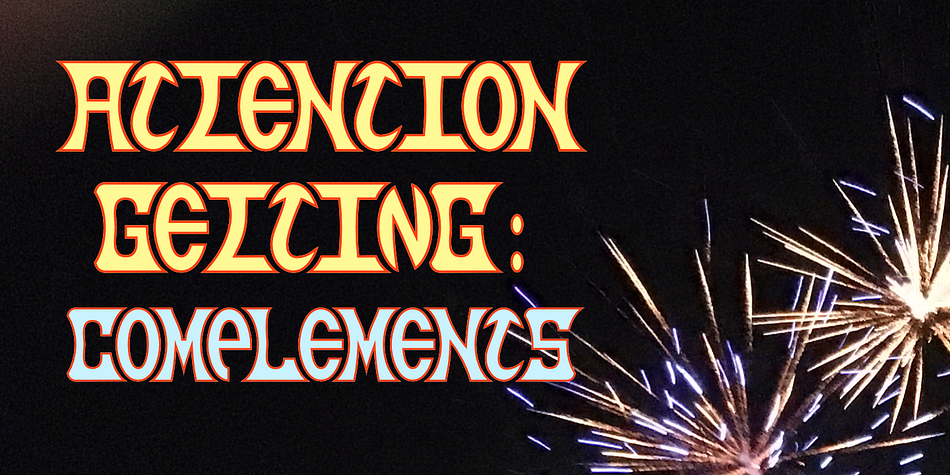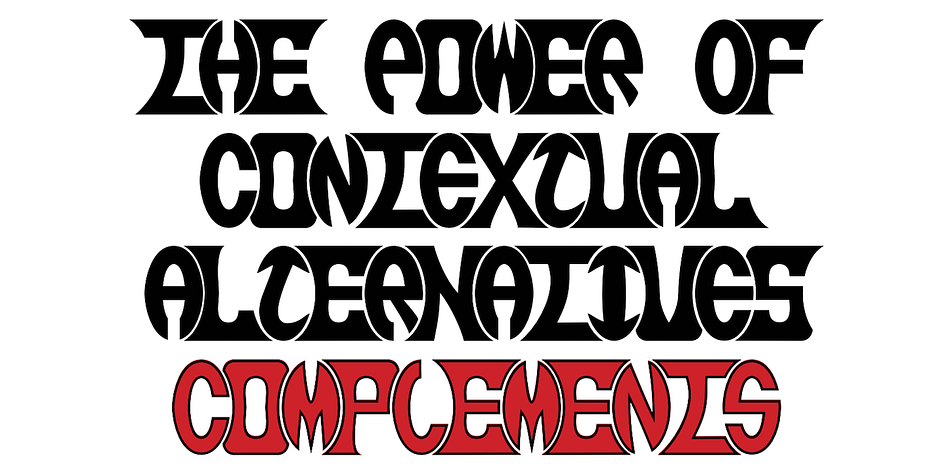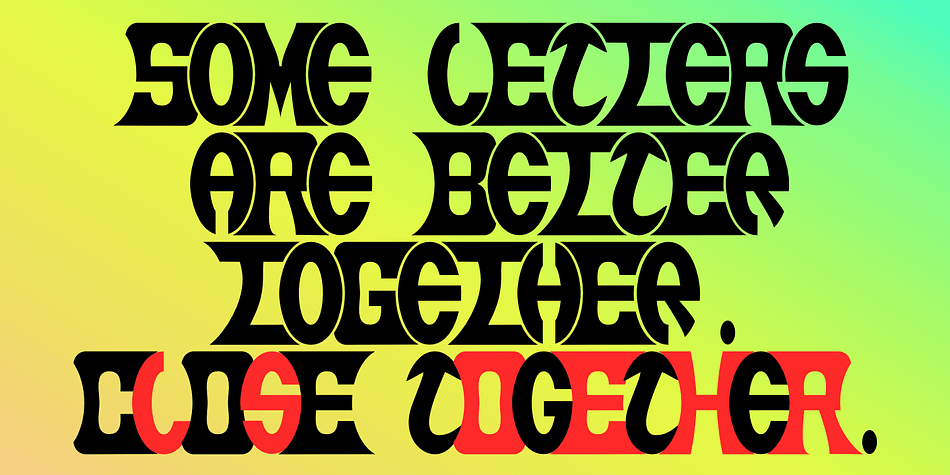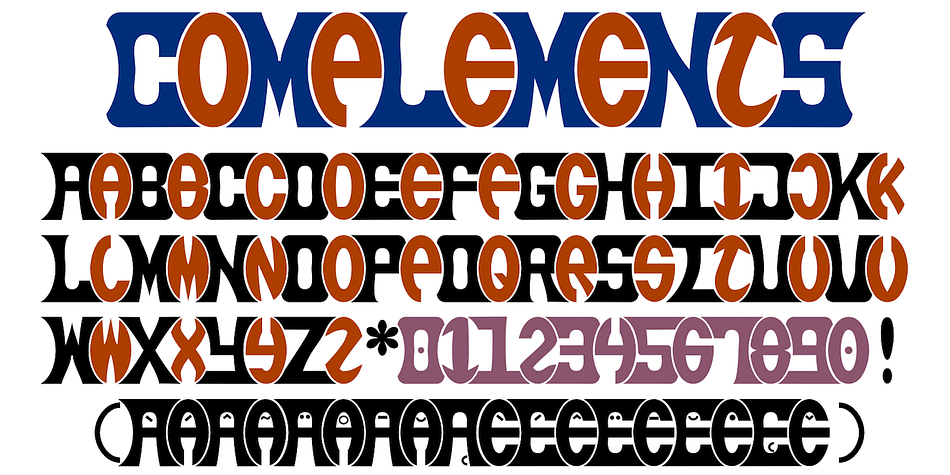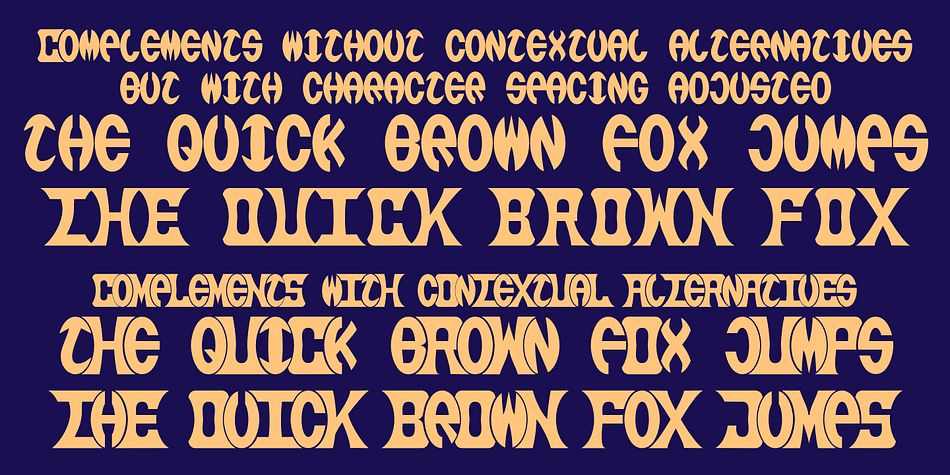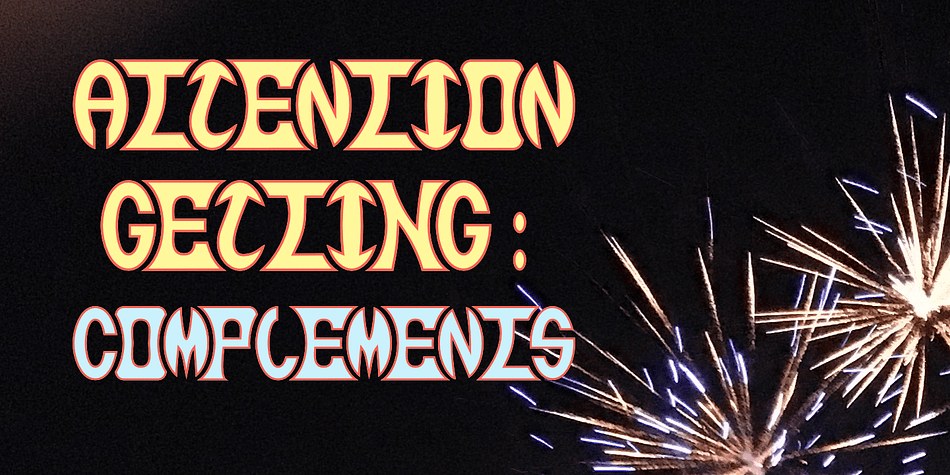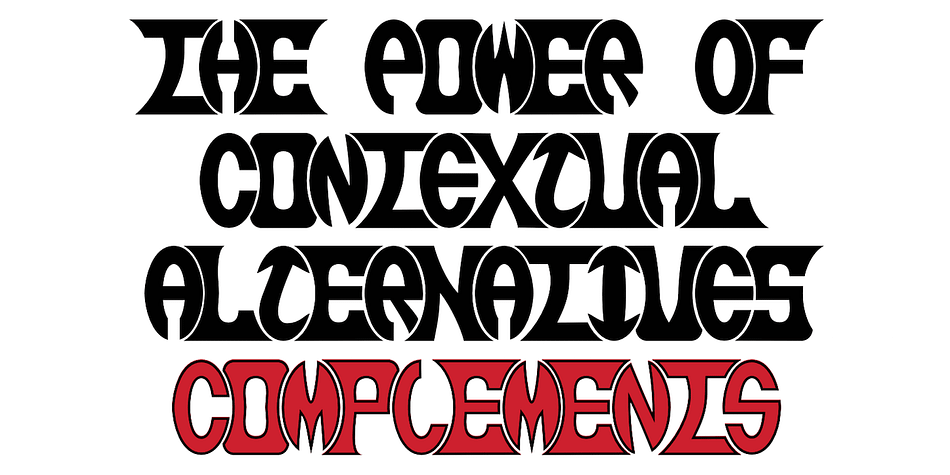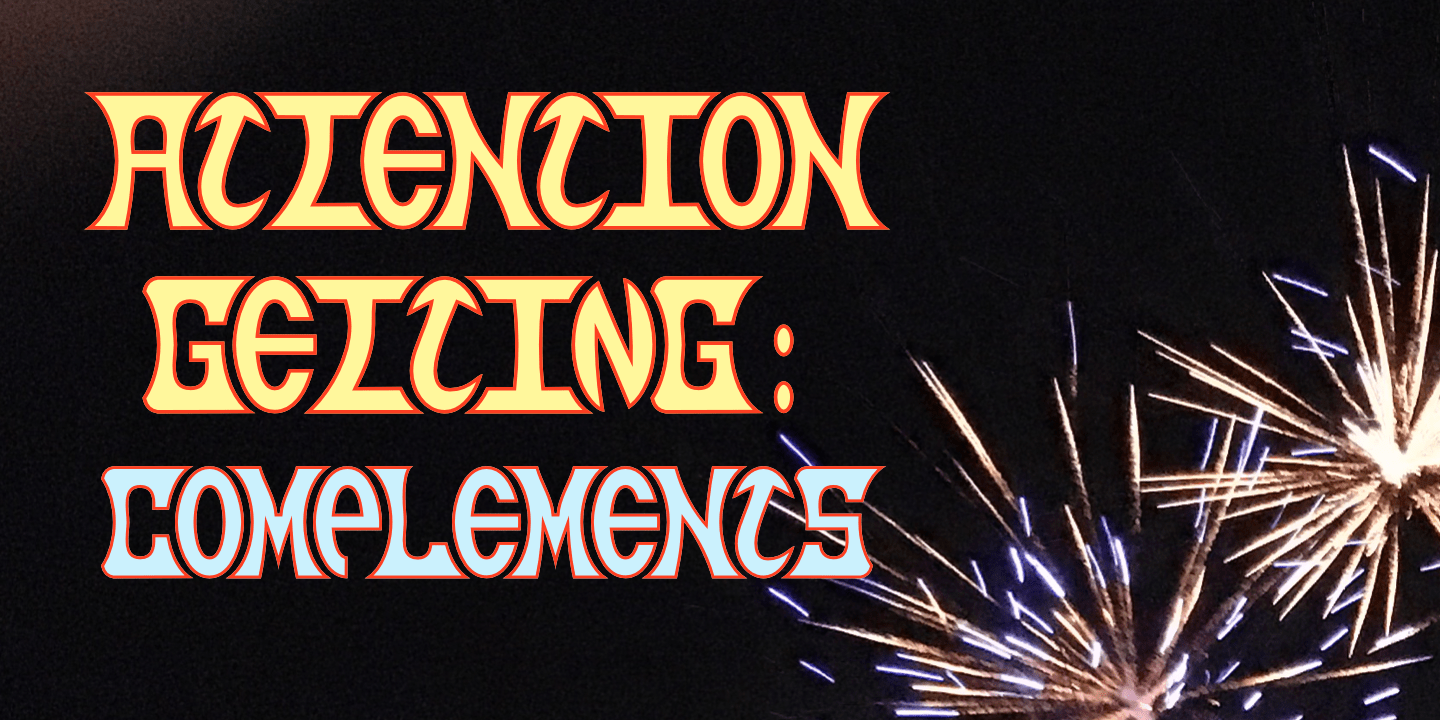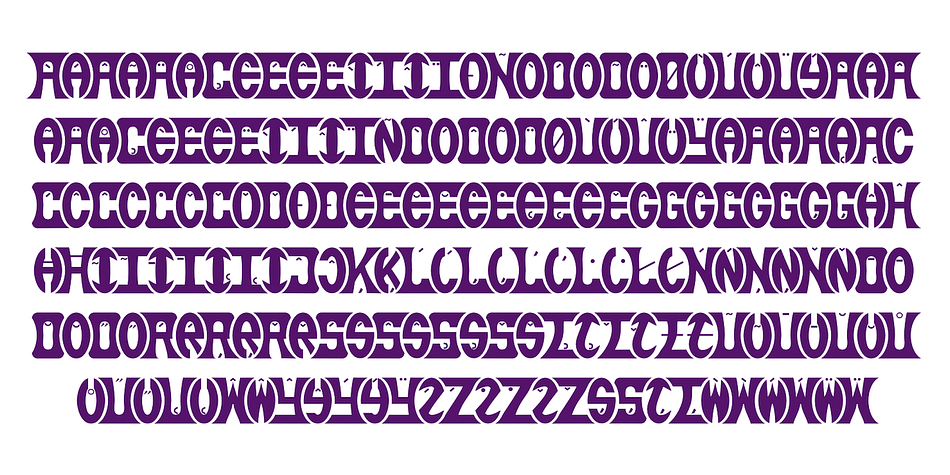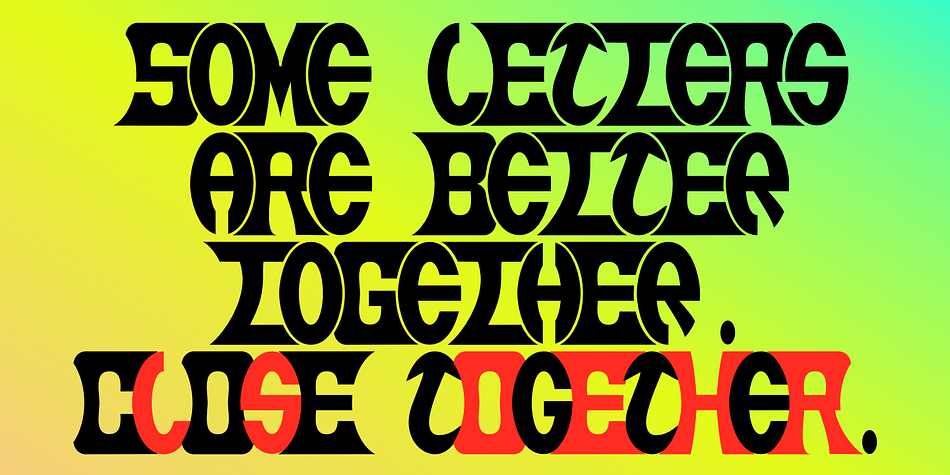
Designed by Robert Schenk, Complements is a display and novelty font family. This typeface has two styles and was published by Ingrimayne Type.
In the typeface family “Complements” two sets of characters complement each other, so much so that they work together much better than they work separately. The two sets are designed to alternate and this alternating is done automatically in applications that support the OpenType feature Contextual Alternatives. Complements is purely for show and display; it is a horrible choice for text. The spacing is very tight, which works well for very large point sizes. At smaller point sizes the user may want to increase character spacing. The typeface is monospaced. If the spacing between words is too large, substitute the non-breaking space (or the underscore) for the space character. Complements is geometric, bizarre, and hard to read, all characteristics that catch the reader’s attention.
Complements comes in two styles, regular and outline. The outline style was designed to be used in a layer over the regular style.